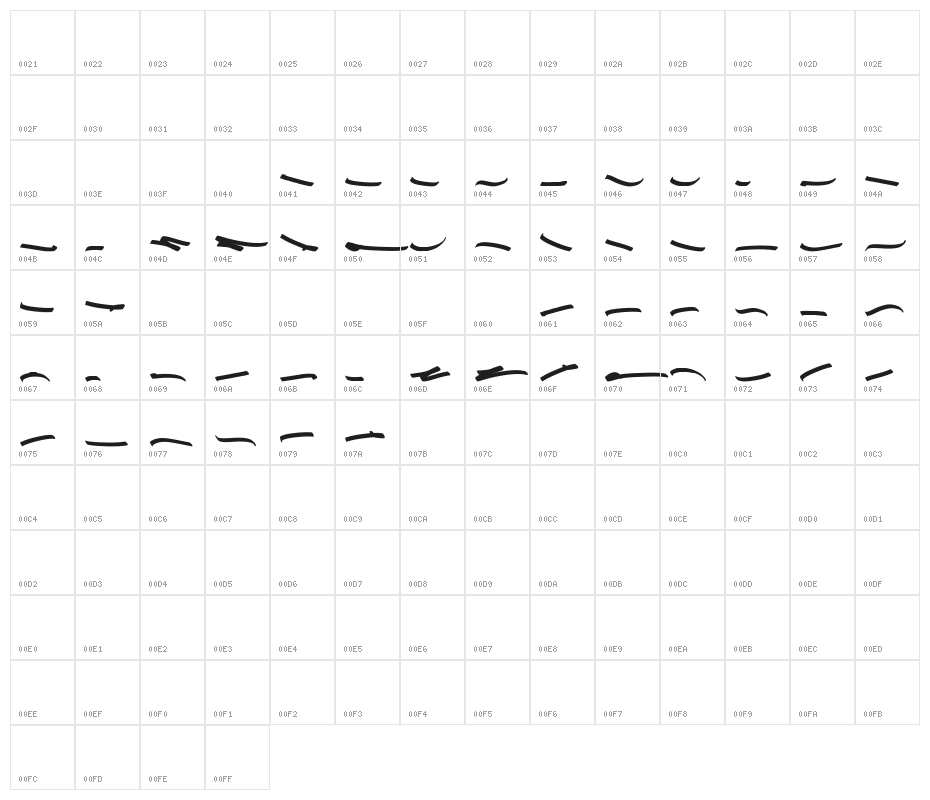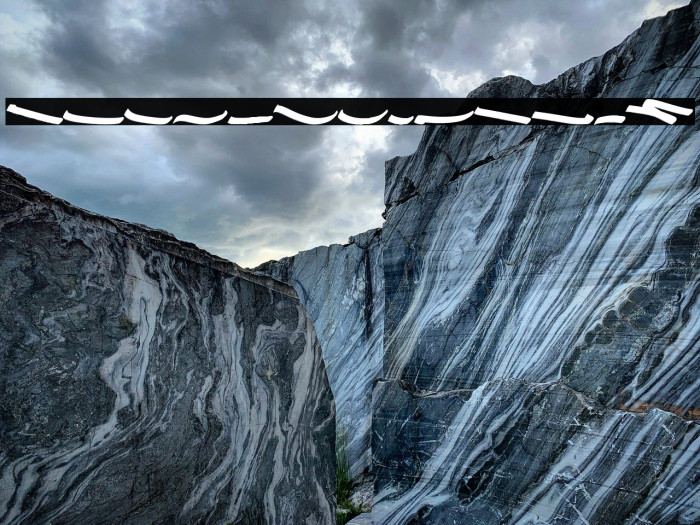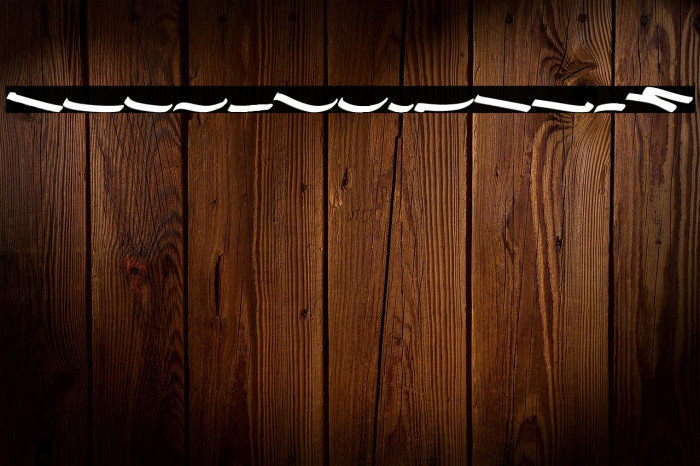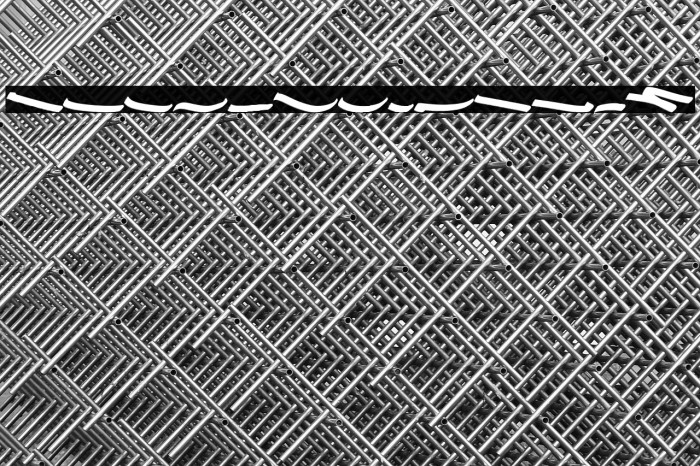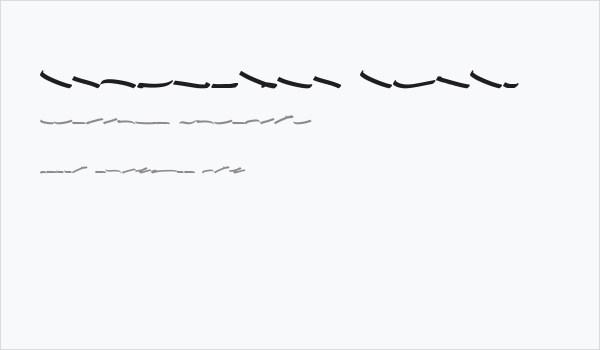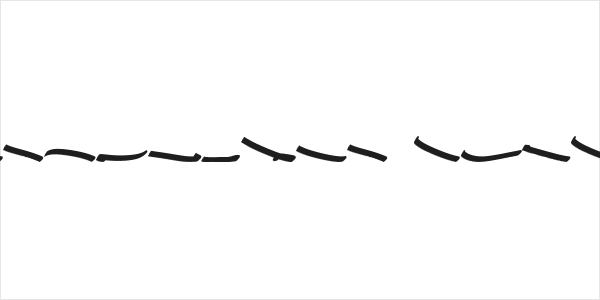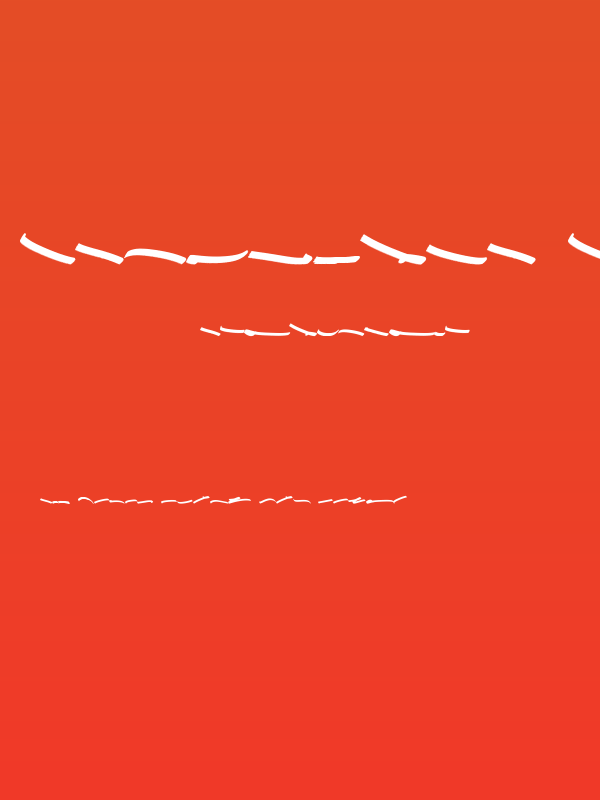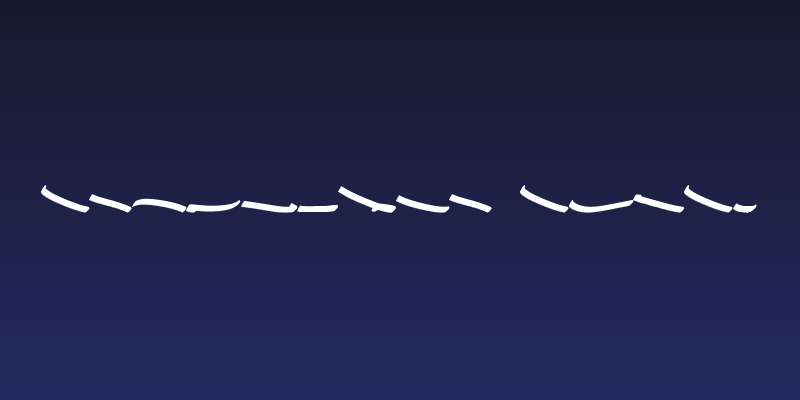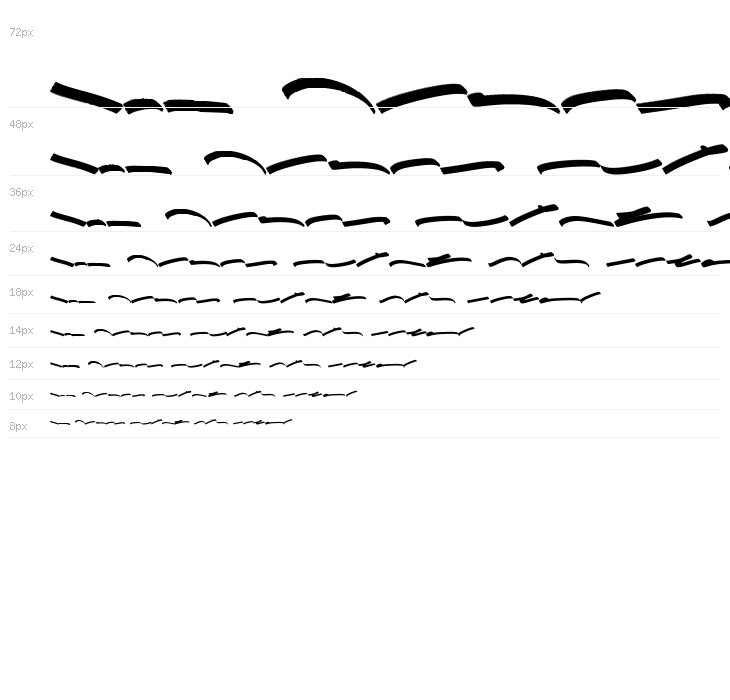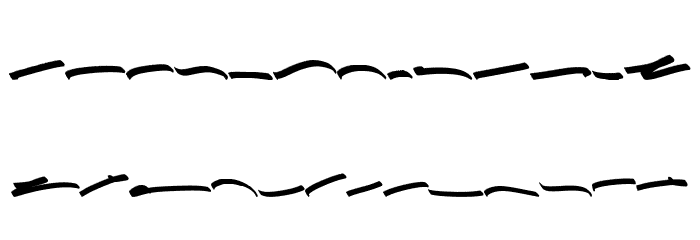
STRIKEOUT SWASH Font
STRIKEOUT SWASH Description
This design features a series of dynamic, flowing lines that resemble a swash or flourish. The strokes are bold and expressive, with a hand-drawn quality that suggests movement and creativity. The lines vary in thickness, adding a sense of rhythm and energy. This style is reminiscent of calligraphic strokes, often used to add decorative elements to text or designs. The overall appearance is artistic and freeform, making it suitable for creative projects that require a touch of elegance and flair.
| Use Case | Logos, Decorative elements |
| Proposed Projects | Ideal for use in artistic designs, invitations, branding elements, or as decorative accents in graphic design projects. |